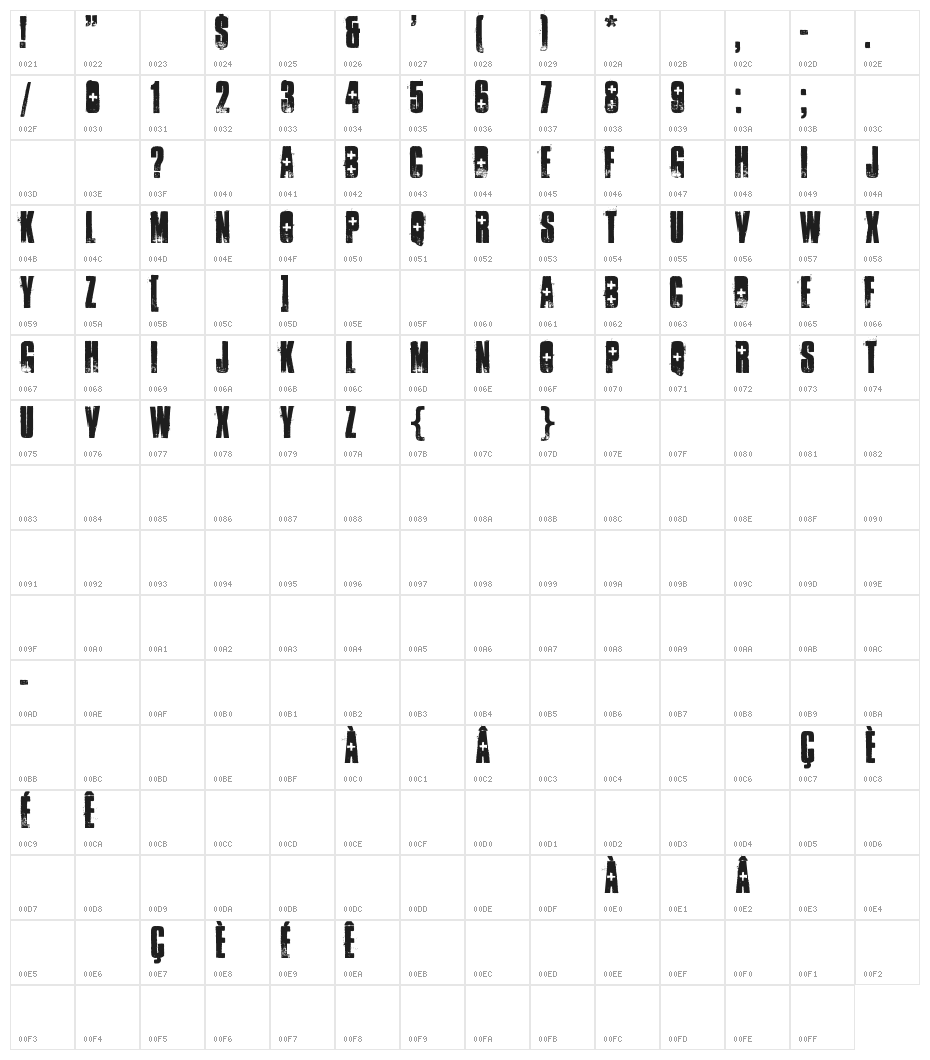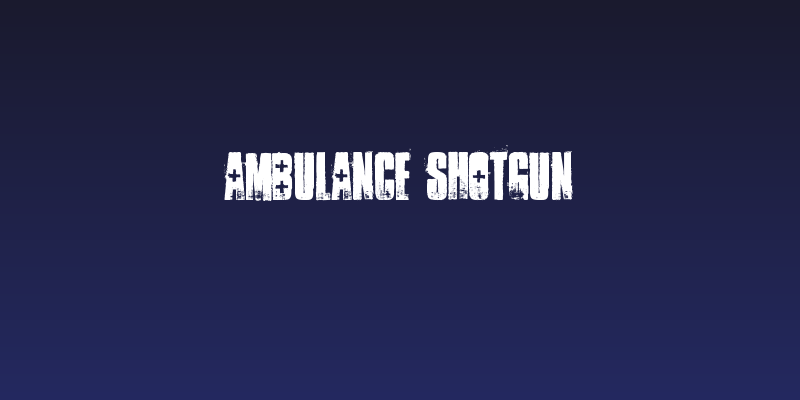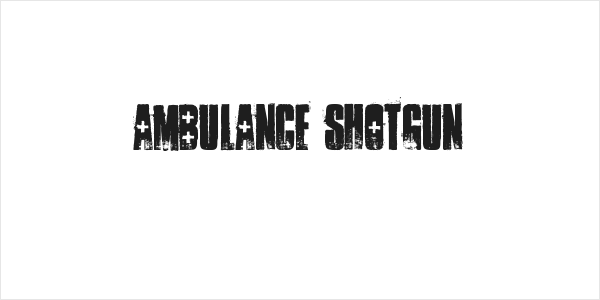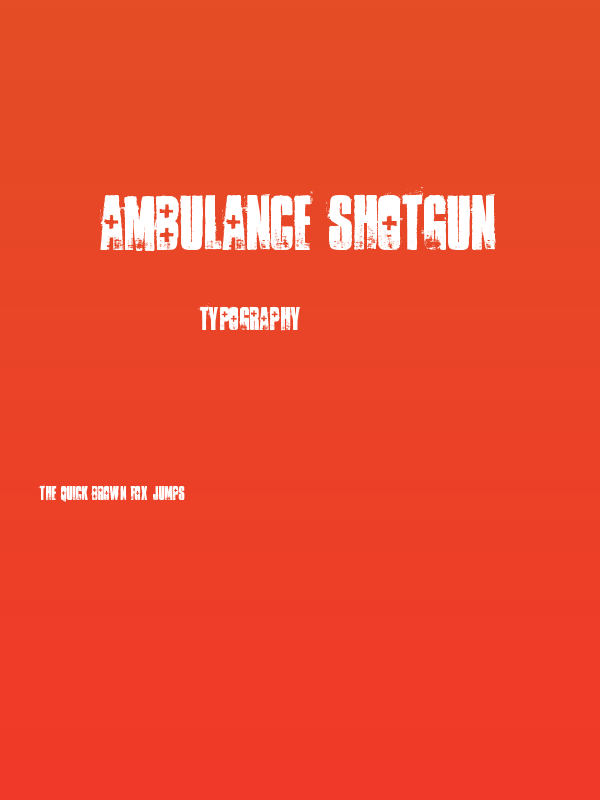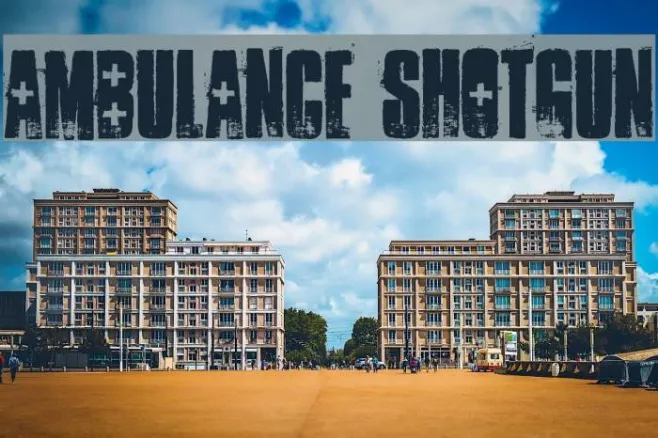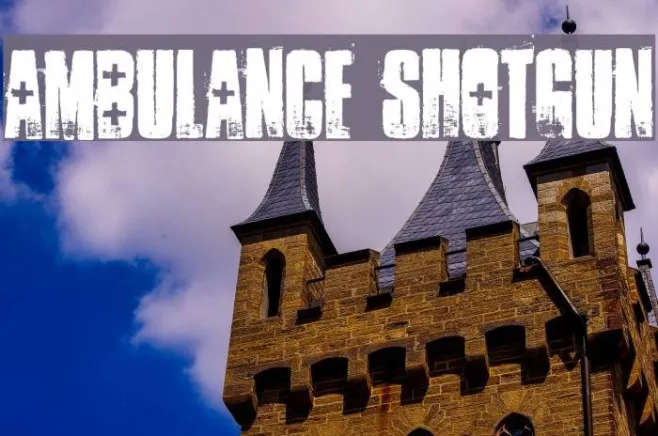
ambulance shotgun Font
ambulance shotgun Description
This font features a bold, distressed style with a gritty, textured appearance. The characters are heavily weathered, giving them a rugged and worn look. Each letter is bold and impactful, with a rough, uneven texture that suggests a sense of urgency and raw energy. The font includes uppercase and lowercase letters, numbers, and a variety of special characters, all maintaining the same distressed aesthetic. The unique design elements make it stand out, particularly the star-like shapes within the letters, adding an extra layer of visual interest.
| Use Case | Logos, Headlines, Posters |
| Proposed Projects | Ideal for projects requiring a rugged, edgy look such as music album covers, posters, or branding for extreme sports. |